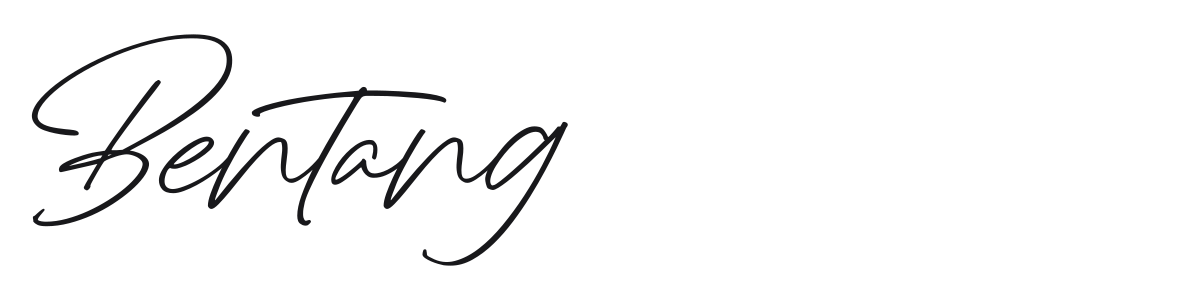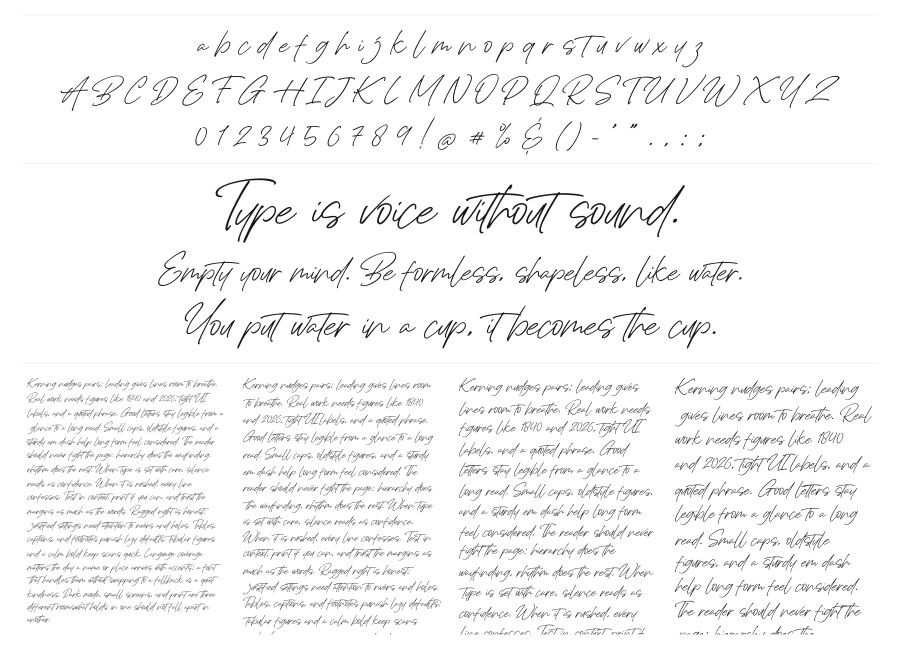
Bentang
Bentang is a flowing casual script that channels the relaxed energy of a quickly penned signature. Its thin, near-monoline strokes and sweeping connections give words an effortless, continuous rhythm. A natural choice for lifestyle branding, packaging, and any project that needs a personal, handcrafted feel.